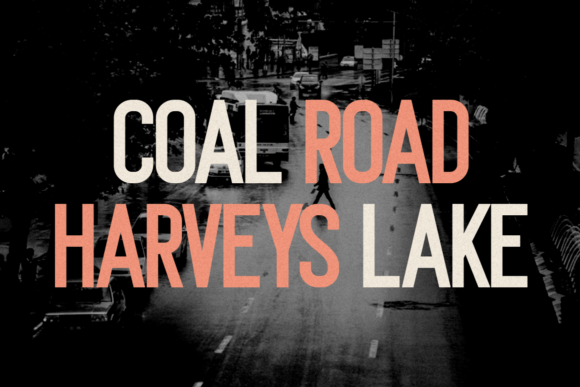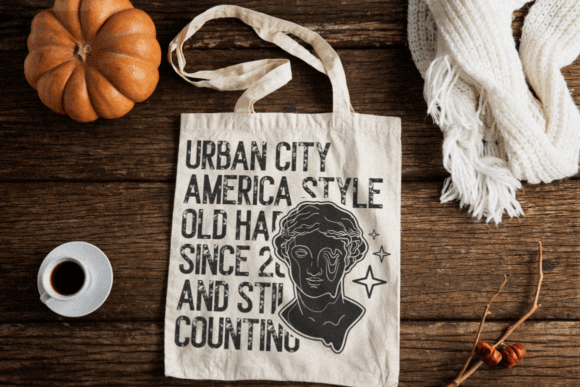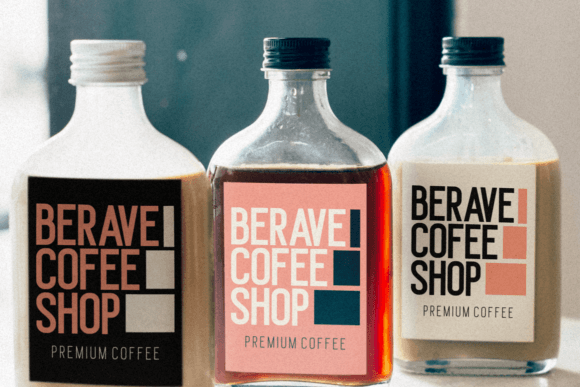
Introduction to Rolever Font
Elevate your designs with Rolever – Modern Sans Serif Font.
This versatile typeface boasts three distinct weights – regular, semibold, and bold – allowing you to infuse your creations with a range of visual impact With two versions available – clean and textured – Rolever offers design flexibility that caters to your unique preferences.
Key Features of Rolever Font
Why Choose Rolever Font?
Rolever Font offers exceptional quality and versatility, making it a valuable addition to your design toolkit. Whether you’re creating for personal projects or commercial use, Rolever Font delivers professional results.